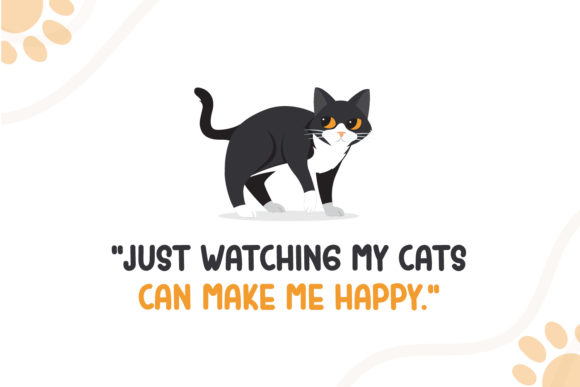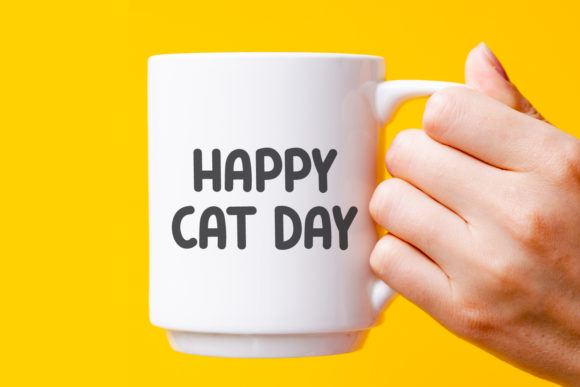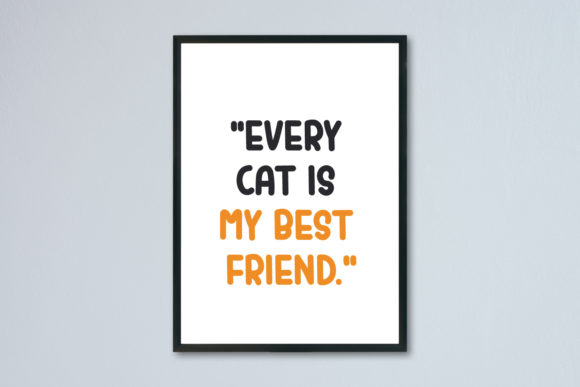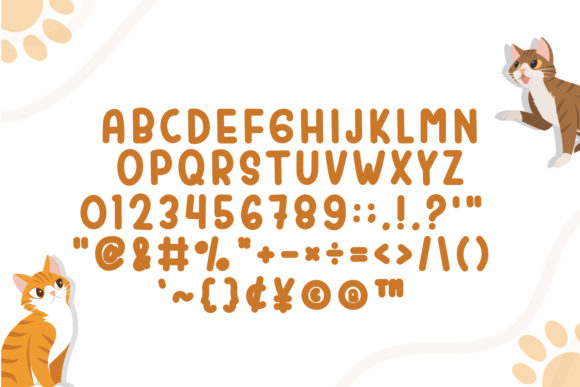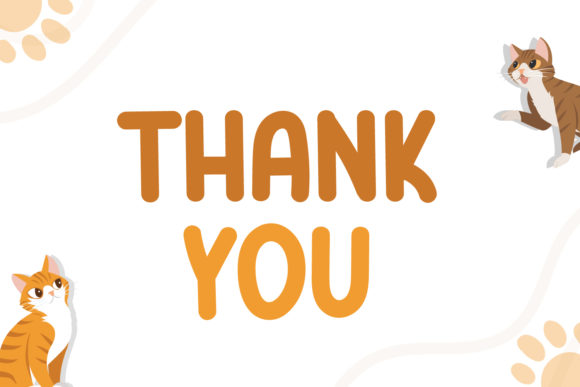
The Purrfect Font: A Deep Dive into Cat Boys Font
I’ll never forget the time I was working on a project for a children’s book, and I just couldn’t find the right font. The client wanted something fun, playful, and engaging, but not too over-the-top. I scoured the internet, tried out dozens of fonts, and still, nothing seemed quite right. That was until I stumbled upon Cat Boys Font. ✨
As soon as I saw it, I knew I had found the one. The cute and friendly display font was exactly what I needed to bring the story to life. In this article, I’ll share my experience with Cat Boys Font, its features, and how to make the most of it in your designs.
- ✅ The font is incredibly versatile and can be used for a wide range of projects, from children’s books to greeting cards and posters.
- ✨ The quirky and playful vibe is perfect for adding a touch of personality to your designs.
- 💻 The font is highly legible, even at smaller sizes, making it perfect for body text or captions.
- 🎨 The range of OpenType features, including glyphs and stylistic alternates, allows for endless creative possibilities.
While Cat Boys Font is an excellent choice for many projects, there are a few things to keep in mind: 🤔
- ⚠️ The font may not be the best choice for very formal or professional projects, as it has a distinctly playful tone.
- ⚠️ Some of the more intricate glyphs and alternates may not display correctly on older systems or in certain software.
The Story Behind Cat Boys Font
Cat Boys Font was designed by a team of creatives who wanted to create a font that would bring a smile to people’s faces. Inspired by the playful and curious nature of cats, they crafted a font that is both fun and functional. Whether you’re a designer, crafter, or hobbyist, Cat Boys Font is sure to delight.
Q: What is Cat Boys Font?
A: Cat Boys Font is a cute and friendly display font designed for creative projects.